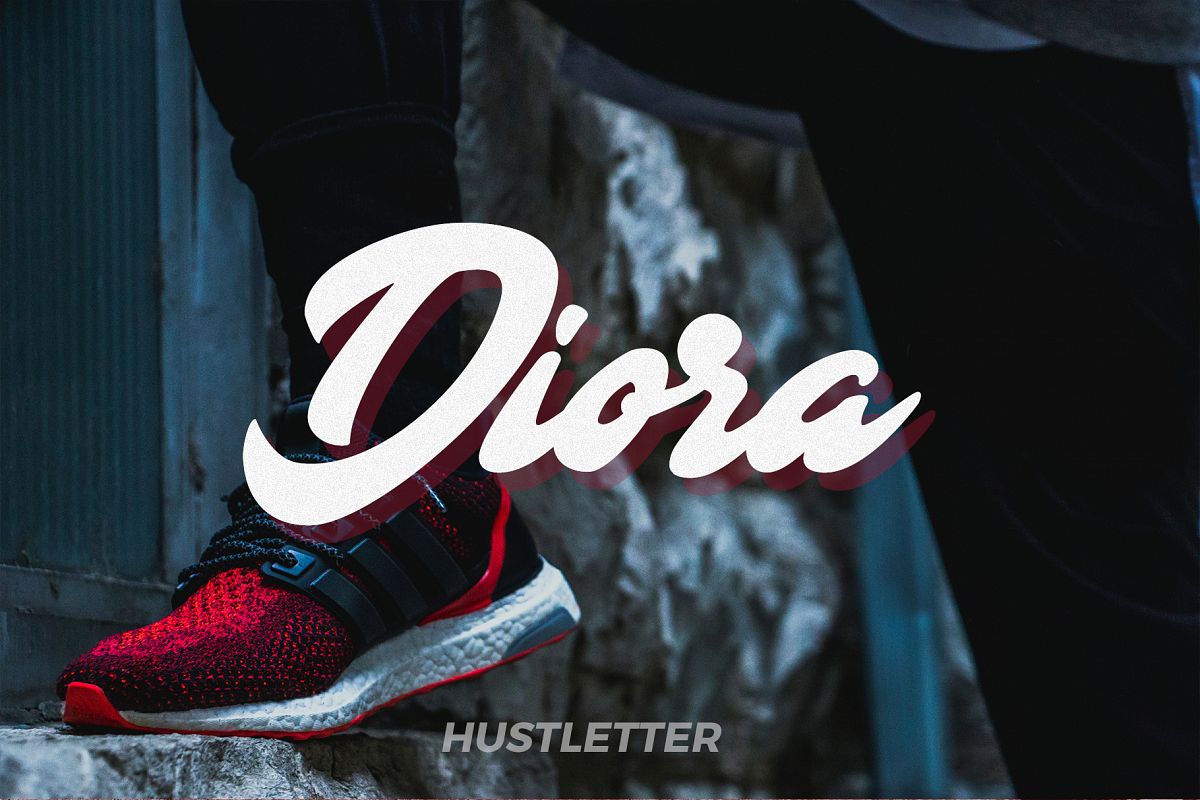
Diora
Diora-Regular
Diora is a fancy handlettering typeface with a Smooth style,Sporty, and dramatic movement. It's allowing you to create beautiful hand-made typography in an instant.It most suitable for headlines, logotype, branding, letterhead, poster, apparel design, product packaging, label,editorial design or anything that need handlettering taste.